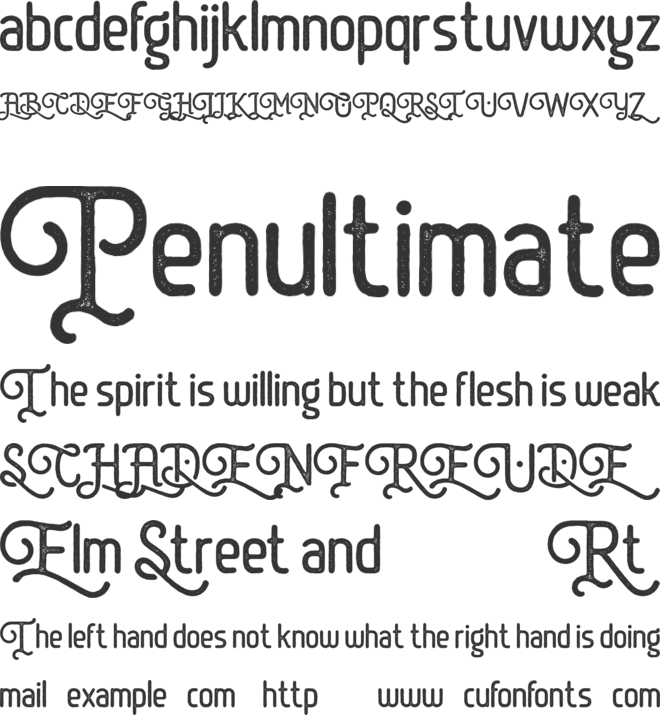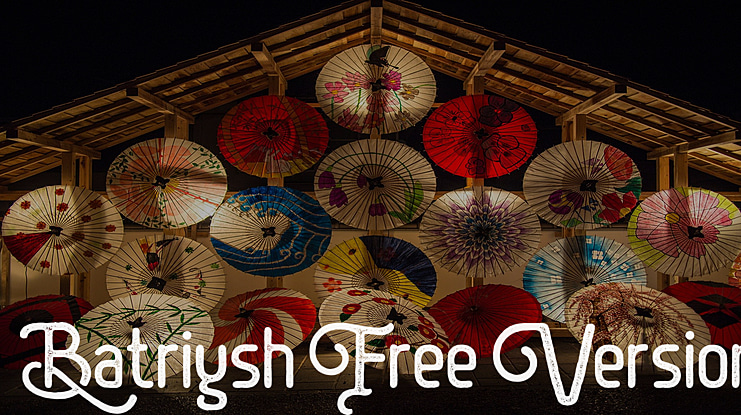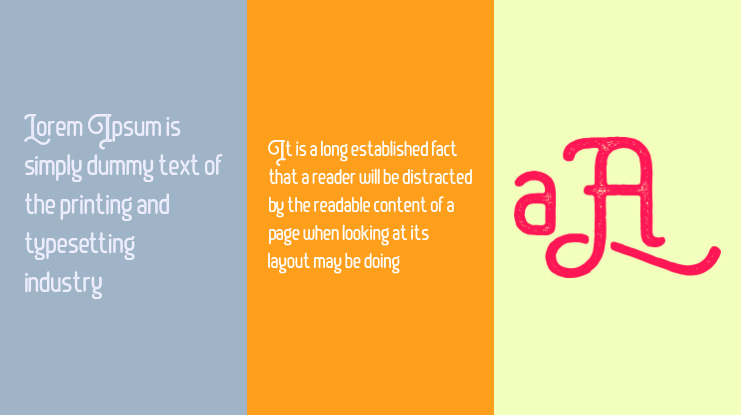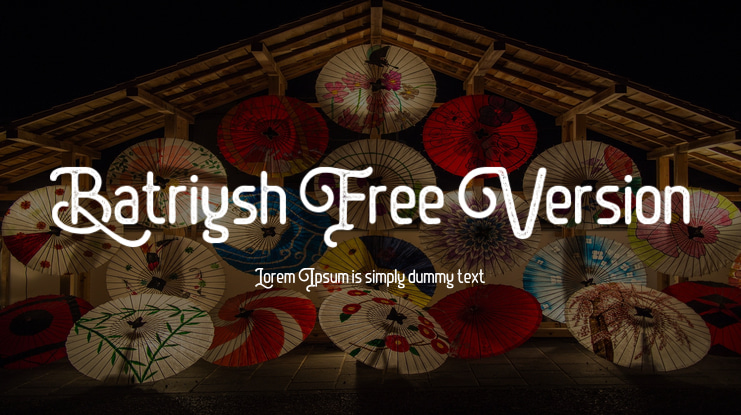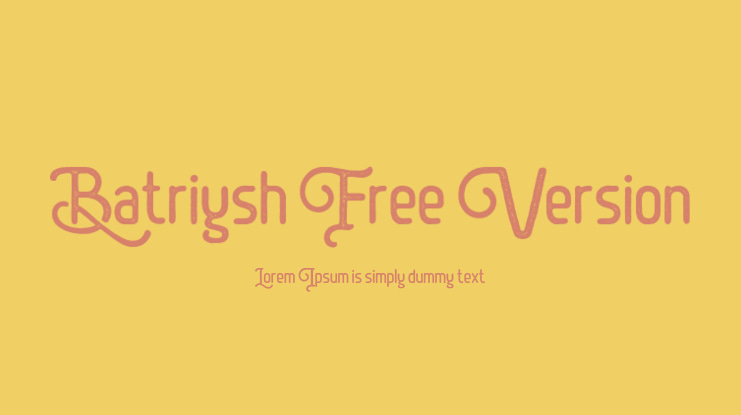
Batriysh Free Version Font
Batriysh offers gorgeous typographic will perfect for many different project such as logos & branding, invitation, stationery, wedding designs, social media posts, advertisements, product packaging, product designs, label, photography, watermark, special events or anything that need handwriting taste.